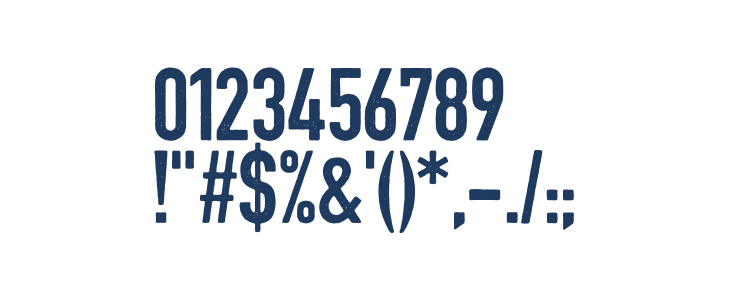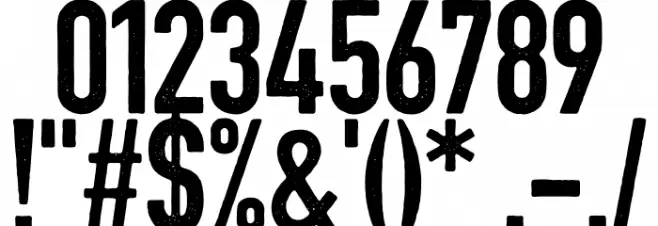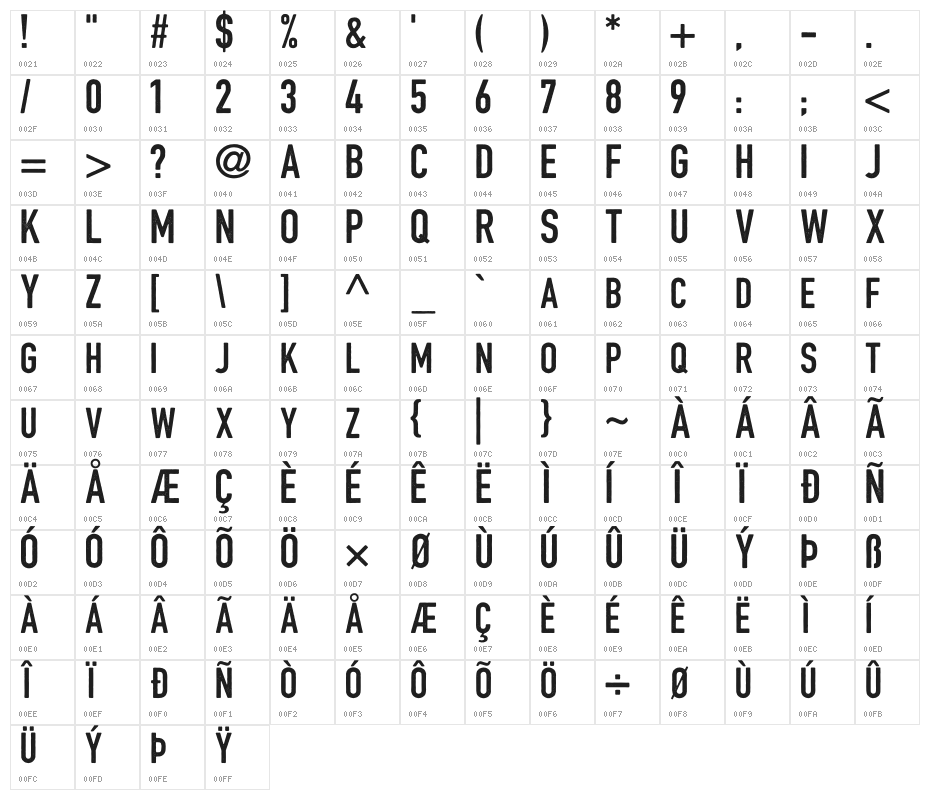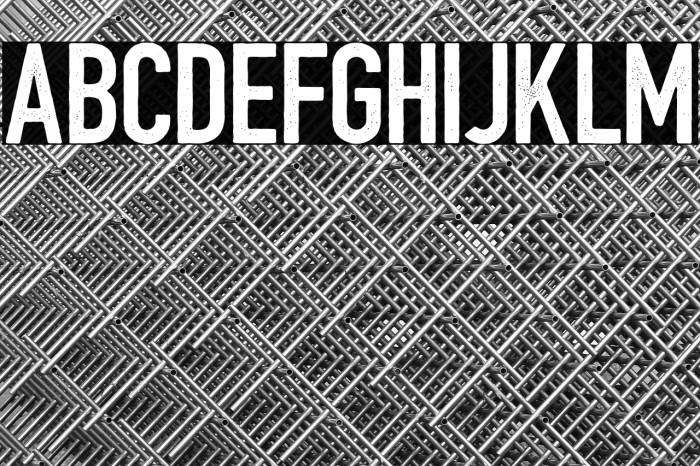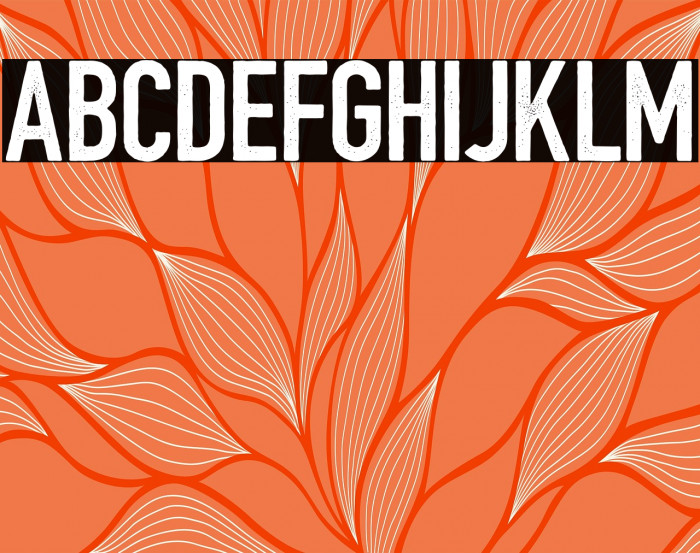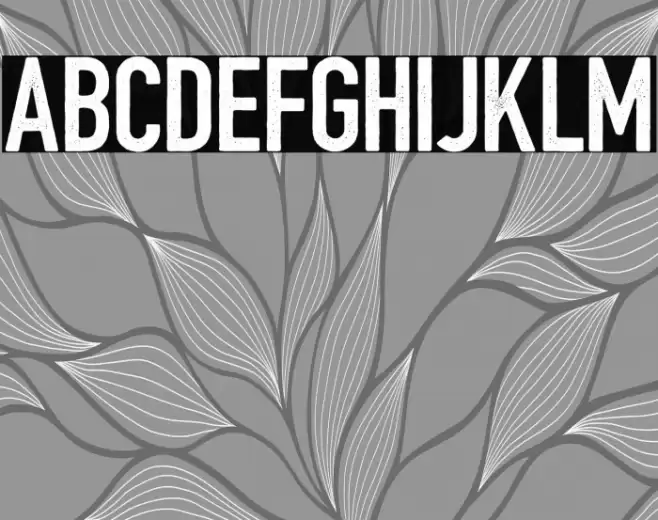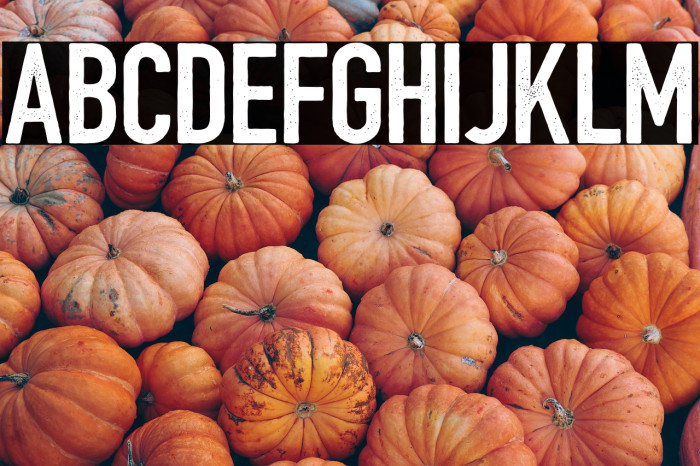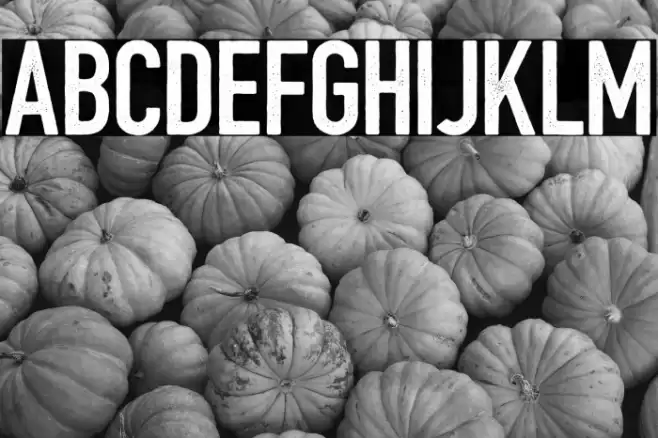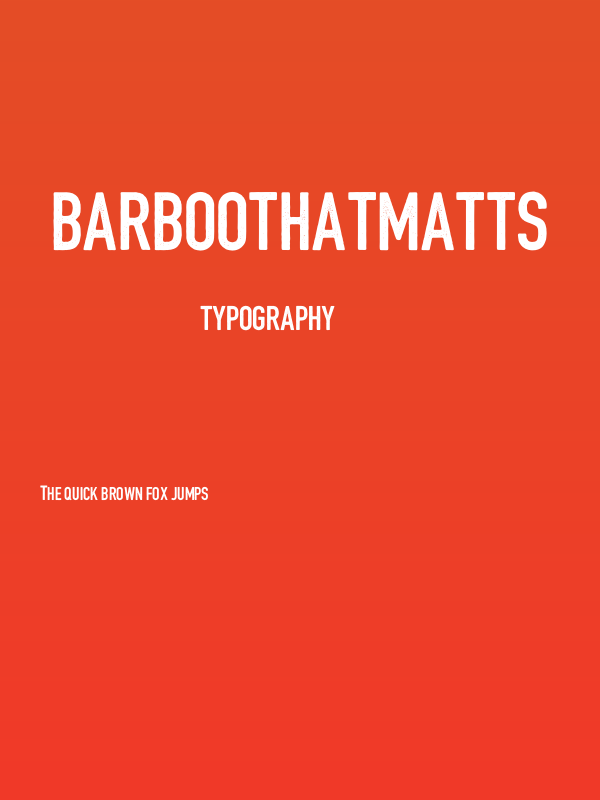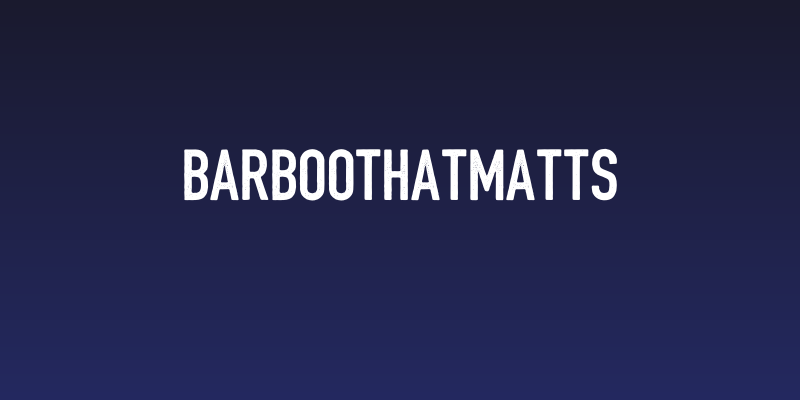
BarBoothatMatts Font
BarBoothatMatts Description
This font features a bold, distressed style with a vintage appeal. The uppercase letters are prominent and slightly condensed, giving a strong and impactful appearance. The numbers and special characters maintain the same distressed texture, adding to the overall rugged aesthetic. The font's design is consistent across all characters, with a slightly rough texture that suggests a hand-printed or stamped look. This makes it ideal for projects that require a touch of nostalgia or a handcrafted feel.